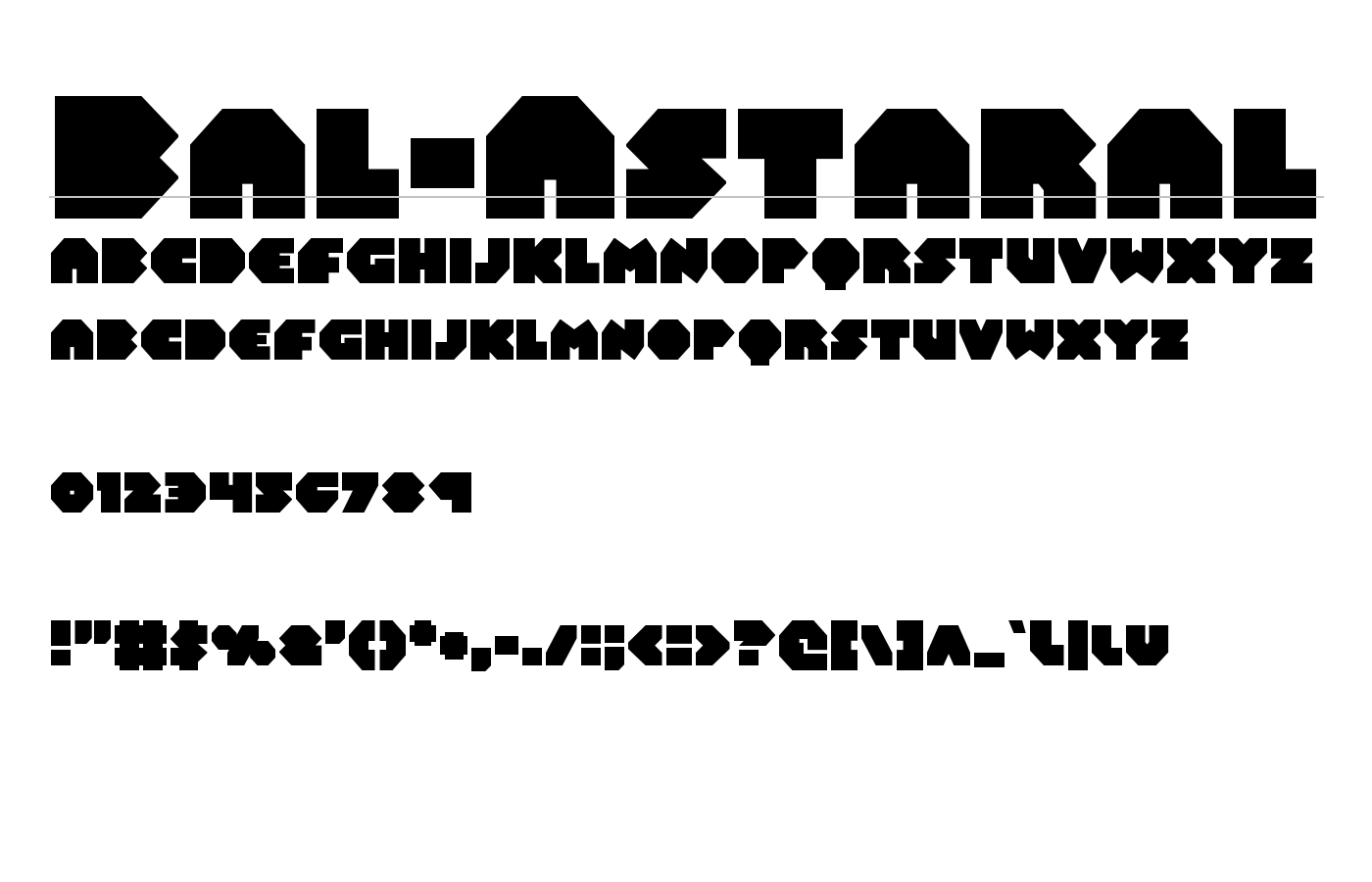
Bal-Astaral is a bold, geometric display font characterized by its heavy weight and sharp, angular shapes that give it a striking, futuristic feel. With its blocky letterforms and strong visual presence, it works best for headlines, logos, and branding where a bold, modern statement is desired. This font is ideal for creative projects needing a distinctive, edgy look that captures attention and conveys strength.
Bal-Astaral Font